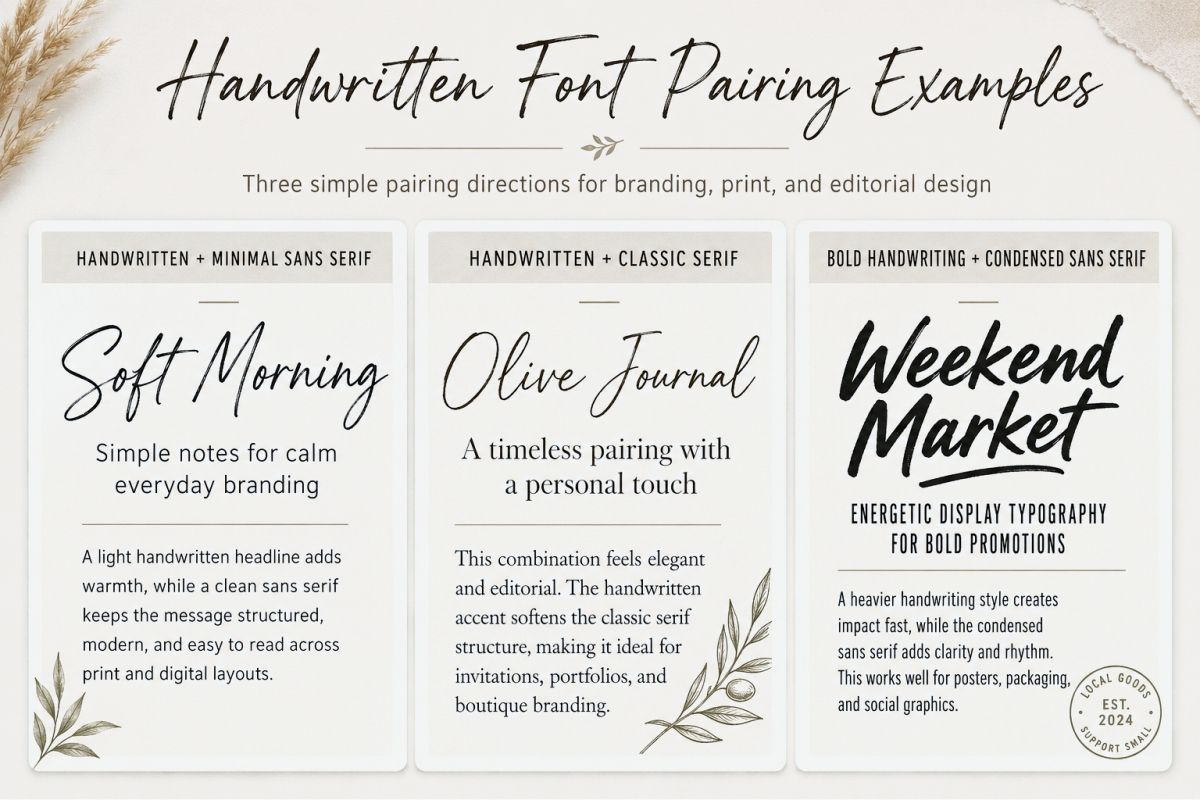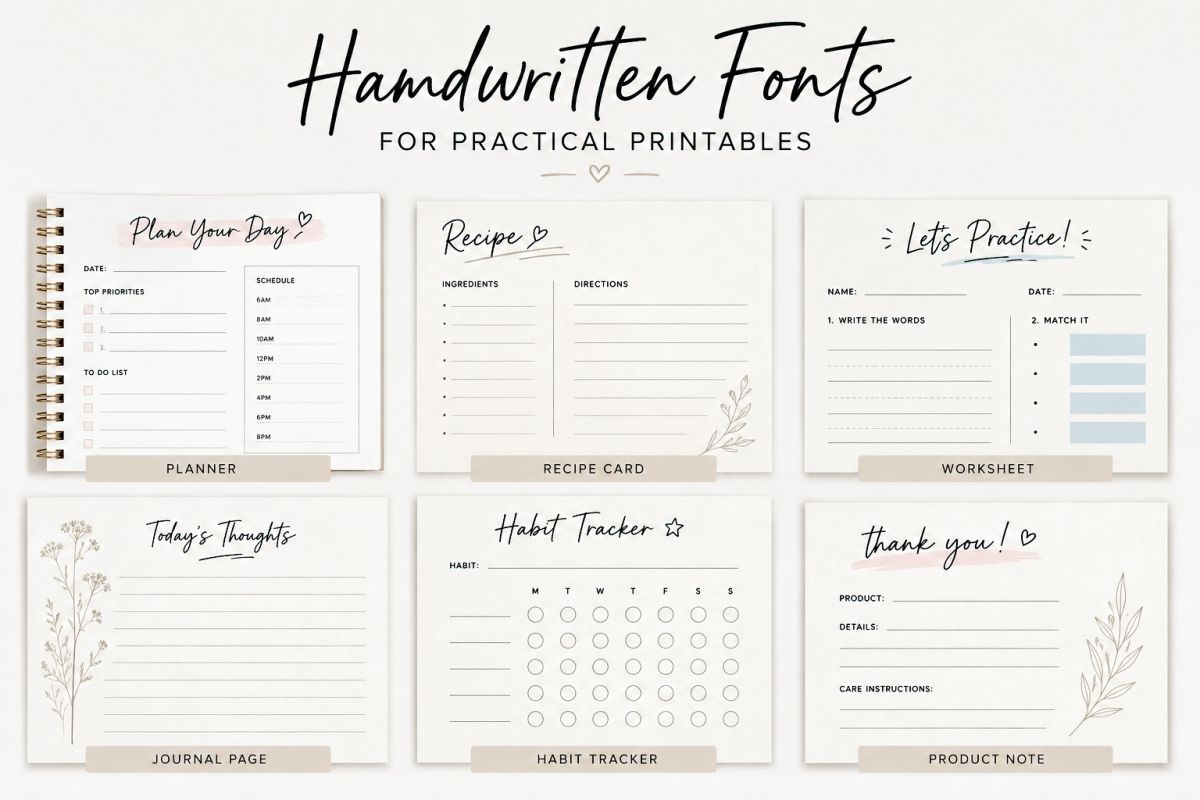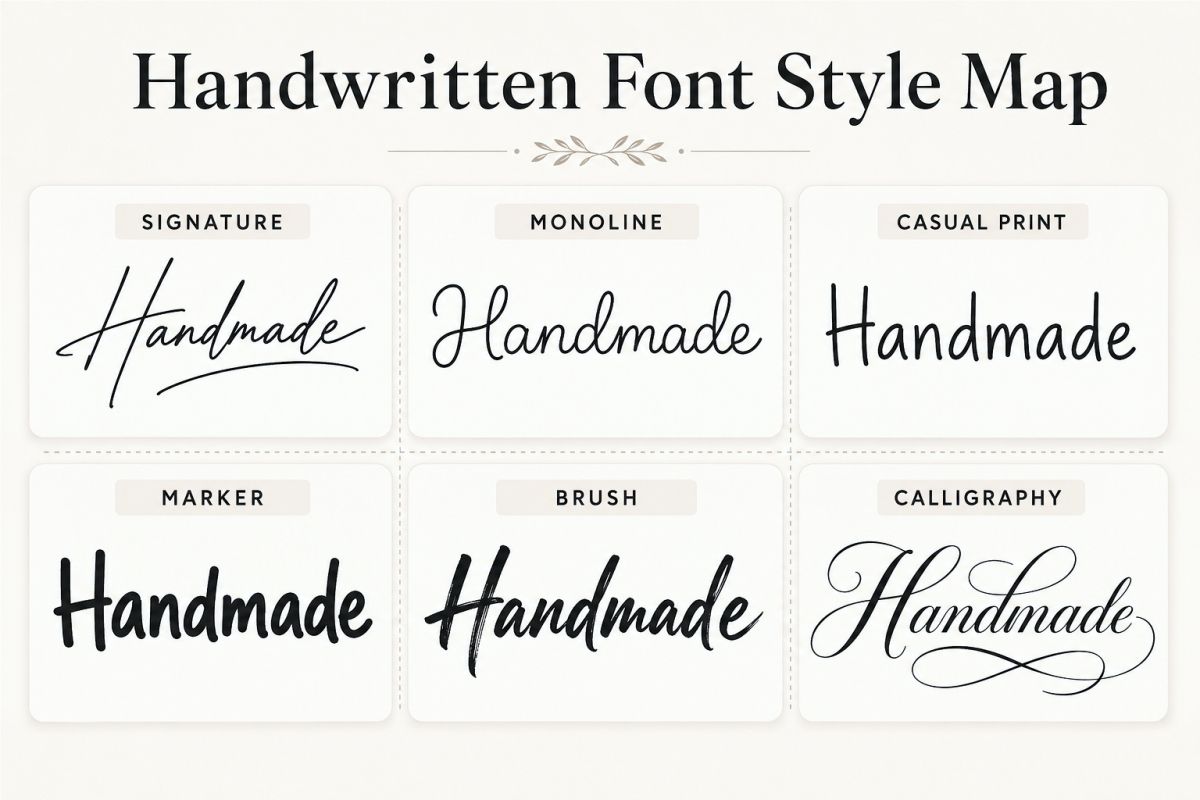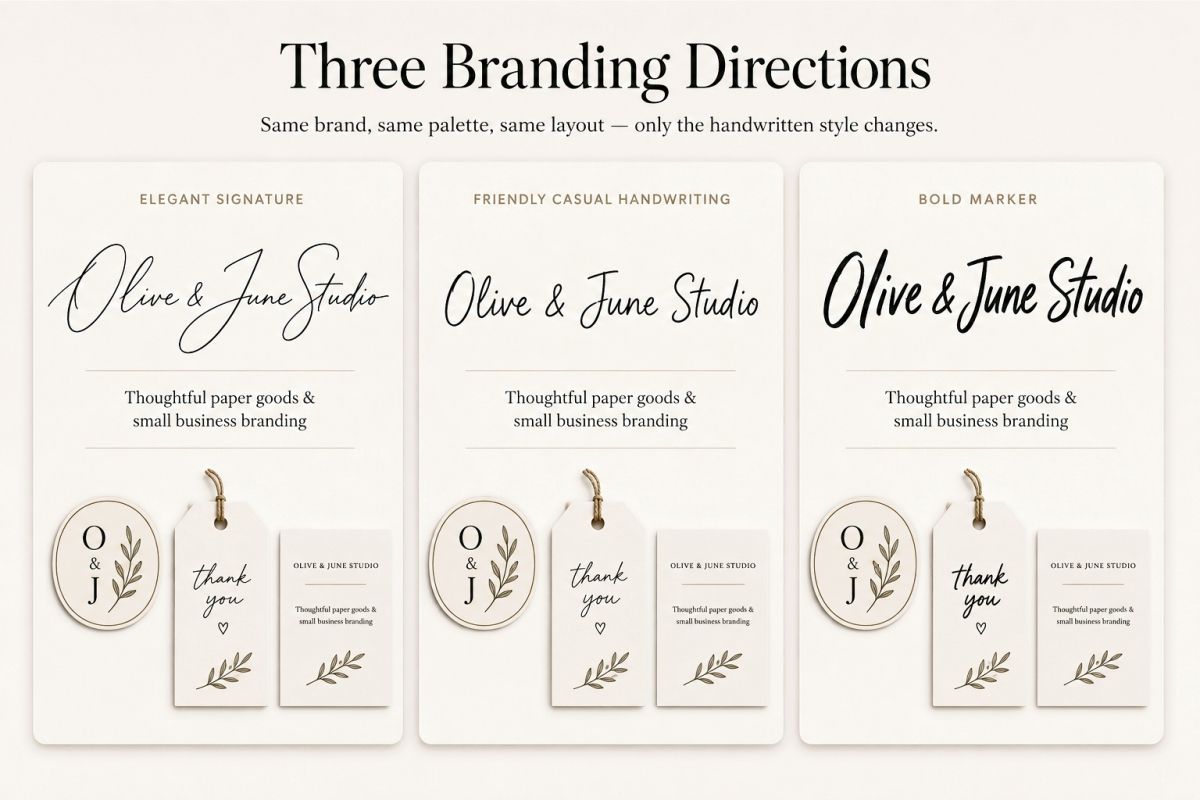
Handwritten Font Ideas for Branding, Cards, and Creative Projects
Handwritten fonts can make a digital design feel more human.
They add movement. Personality. A little imperfection.
But that does not mean every handwritten font feels warm and friendly. Some look elegant. Some feel playful. Others can make a design look rebellious, nostalgic, romantic, or handmade.
The real challenge is not finding a beautiful font. It is choosing one that says the right thing.
In this guide, I’ll share practical handwritten font ideas for branding, cards, packaging, social media, and other creative projects. I’ll also show you how to evaluate a font before buying or downloading it.
The goal is simple.
You should end up with typography that feels personal without making your design difficult to read.
What Is a Handwritten Font?
A handwritten font is a digital typeface designed to imitate writing made by hand.
The letters may look as though they were drawn using a pen, pencil, brush, marker, chalk, or ink. Some handwritten fonts are tidy and controlled. Others deliberately include irregular shapes, uneven baselines, and varied strokes.
You can find a broader definition in the Google Fonts Knowledge handwriting glossary.
Handwritten fonts are often grouped together with script fonts. However, they are not always the same.
A script font usually imitates cursive or calligraphic writing. Its letters may connect and flow into one another.
A handwritten font can be much looser. It may look like casual notes, printed letters, marker writing, signatures, classroom handwriting, or rough brush lettering.
That wider range is what makes the category so useful.
Handwritten Font Ideas Handwritten Font Style Guide
Why Handwritten Fonts Feel More Personal
Most digital typography is built around consistency.
Every repeated letter usually looks the same. The spacing follows a system. The lines remain controlled.
Handwritten fonts often soften that precision.
A slightly uneven baseline can suggest movement. A loose stroke can feel spontaneous. A long swash may create elegance. Rounded letters may make a design feel friendly and approachable.
These small details create the impression that a real person is behind the message.
That is why handwritten typography often works well for:
• Personal brands
• Small creative businesses
• Handmade products
• Greeting cards
• Wedding stationery
• Food packaging
• Children’s products
• Social media graphics
• Printable quotes
• Craft and lifestyle projects
Still, personality alone is not enough.
The font must also match the audience, format, and reading distance.
Choose a Handwritten Font by Voice, Gesture, and Distance
Instead of choosing a font because it looks “cute” or “beautiful,” I prefer to evaluate three things: voice, gesture, and distance.
Voice
Imagine the text being spoken aloud.
Does the font sound calm, energetic, romantic, playful, luxurious, rebellious, or nostalgic?
A thin signature font may sound elegant and personal. A chunky marker font may sound loud and youthful. A rough brush font may sound bold and expressive.
The font’s voice should match the message.
Gesture
Look at how the letters appear to move.
Long upward strokes can feel optimistic. Heavy downward strokes may feel confident. Loose letter connections can feel relaxed. Sharp angles may look energetic or edgy.
Gesture is especially important in short text such as logos, product names, headlines, and greeting card messages.
Distance
Ask where the text will be seen.
A delicate handwritten font might look beautiful on a wedding invitation held in your hands. The same font may disappear on a small Instagram thumbnail.
A rough brush font may look strong on a poster but overwhelming in a small product label.
Always test the font at its actual size.
A typeface should not only look good when enlarged on your screen.
12 Handwritten Font Ideas for Creative Projects
The best handwritten font is not simply the most decorative one. It is the font that supports the story of the project.
Here are twelve directions you can explore.
1. Signature-Style Fonts for Personal Branding
A signature font creates the impression that a person has personally signed the design.
This makes it a natural choice for photographers, coaches, artists, bloggers, designers, and other personal brands.
Use it for:
• Personal logos
• Website headers